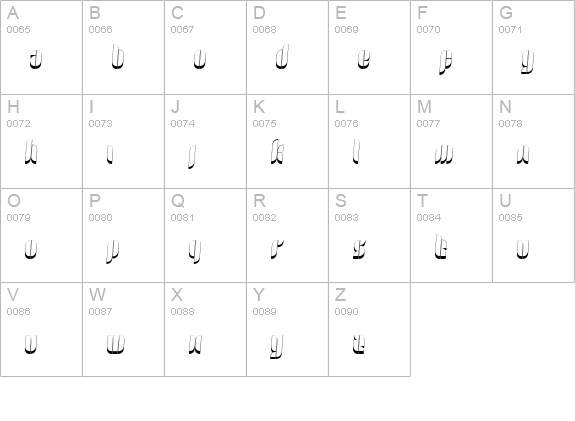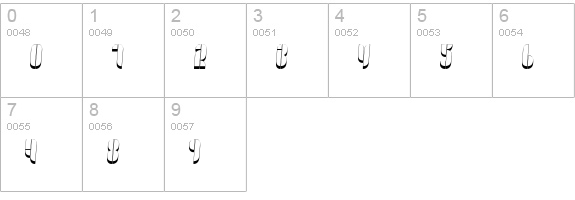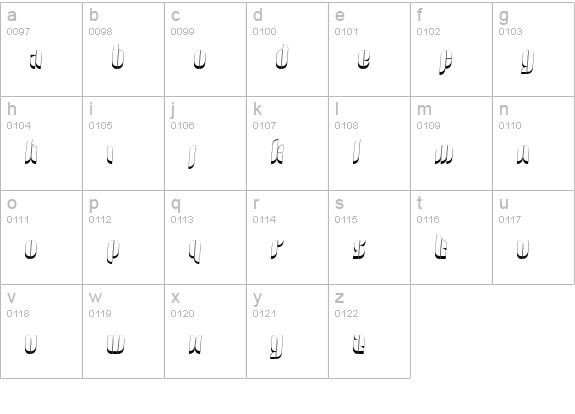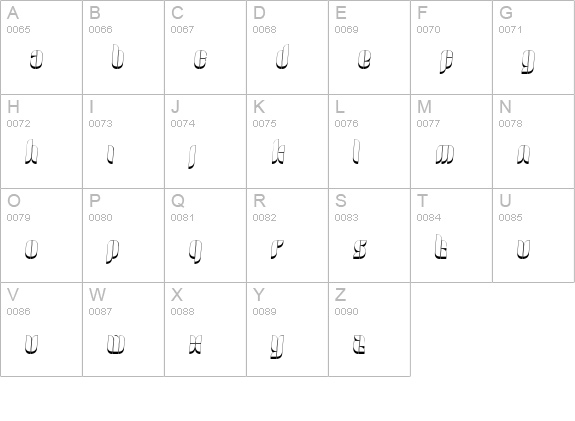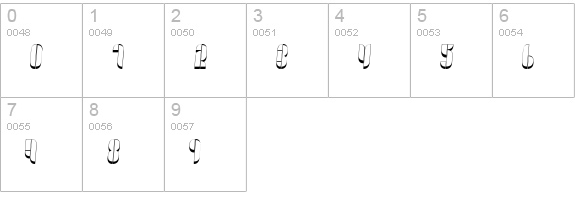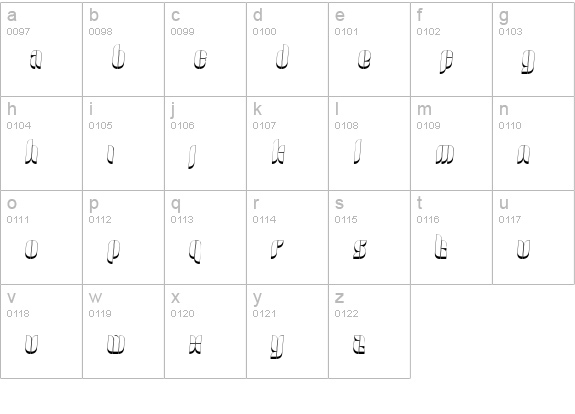
Discover the elegance and versatility of the 10.10 font, a sleek and modern typeface that exudes sophistication. With its clean lines and balanced proportions, this font is the perfect choice for a wide range of design projects. Whether you're creating a stylish logo, designing a sleek website, or crafting eye-catching marketing materials, the 10.10 font is sure to make a lasting impression. Best of all, the 10.10 font is available for free download at FontsMarket.com. Take advantage of this incredible offer and add this stunning font to your collection today. With its timeless appeal and effortless style, the 10.10 font is sure to become a staple in your design toolkit. Download it now and unleash your creativity with this exceptional typeface.